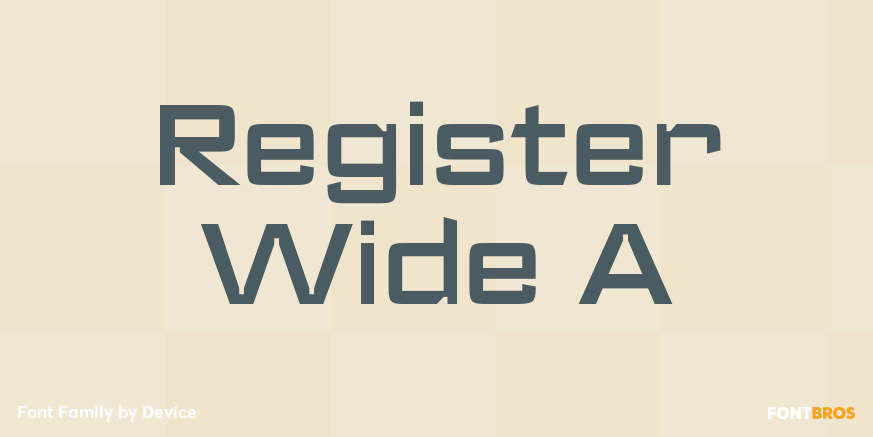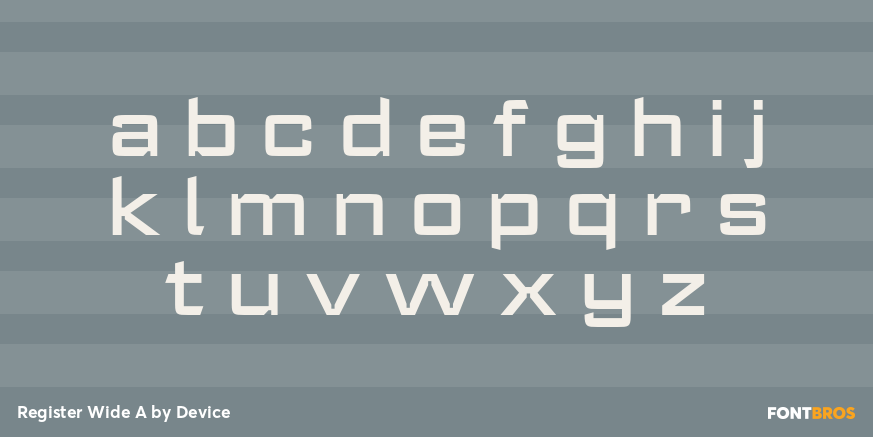
Register Wide A
Font Family by Device
This family includes 4 styles: Light, Light Italic, Demi Bold, and Demi Bold Italic. That compact range gives you useful contrast for display settings, whether you're building logo concepts, poster typography, packaging, branding, social graphics, or other standout title work.
Designed by Device, this release balances clean sans serif structure with a distinctly futuristic edge. If you're after a display family that reads modern without feeling generic, this one brings a sharp, spacious character to the page.